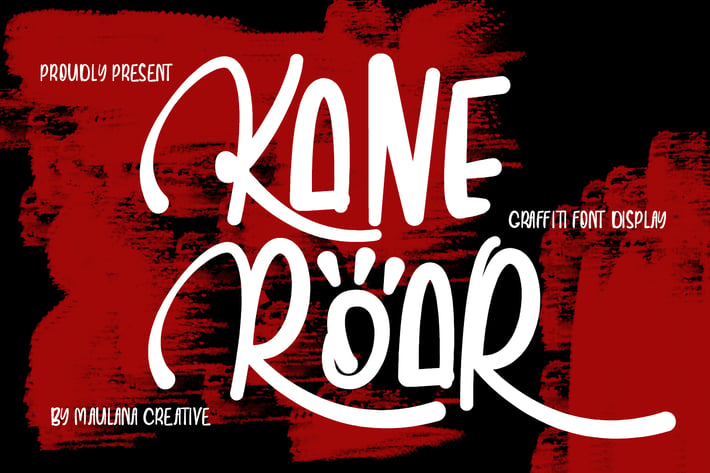
Kane Roar Urban Graffiti Display Font
Kane Roar urban graffiti display font. Heavy stroke, fun character with a bit of ligatures. To give you an extra creative work. Kane Roar urban graffiti display font support multilingual more than 100+ language. This font is good for logo design, Social media, Movie Titles, Books Titles, a short text even a long text letter and good for your secondary text font with script or serif. Make a stunning work with Kane Roar urban graffiti display font.